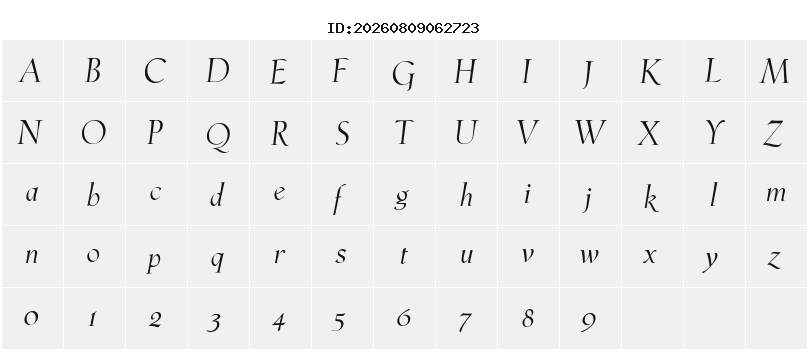
• Font Name: PhaistosItalic
About PhaistosItalic.ttf
PhaistosItalic.ttf is a modern, elegant sans-serif font designed for ultimate readability and visual harmony. Perfect for branding, headlines, web design, and print materials.